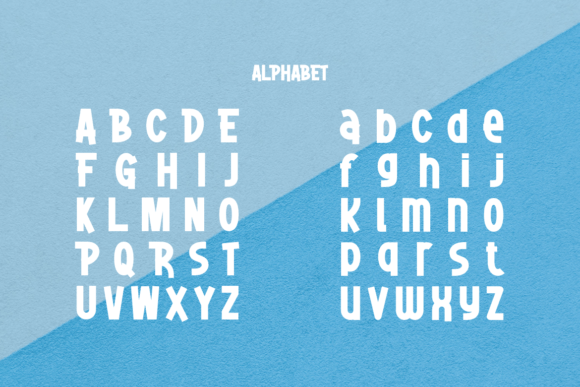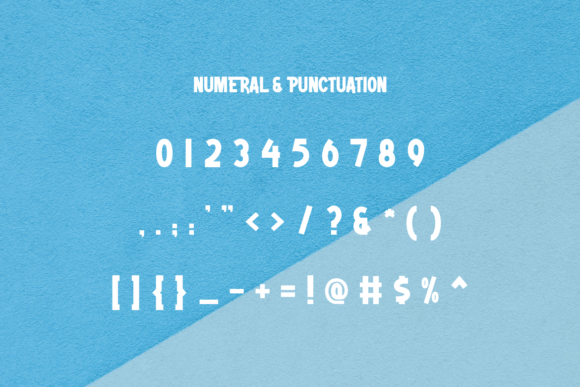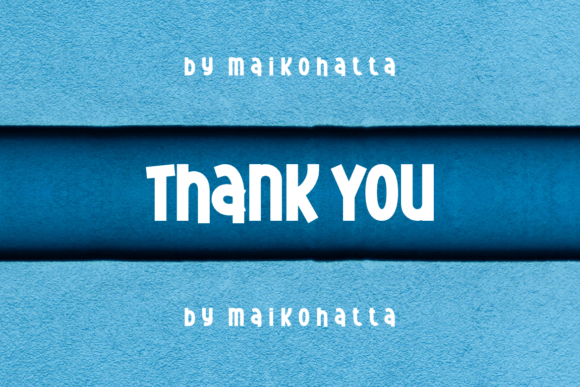
The Perfect Match for Your Next Design Project
Have you ever been in a situation where you’re browsing through a font library, scrolling through countless options, and suddenly, you stumble upon that one font that makes your design come alive? That’s exactly what happens when you discover the Bengben Font. This bold and authentic display font is designed to make a statement and leave a lasting impression.
Bengben Font is perfect for any branding project, from logos to t-shirt printing, and even esports designs. Its versatility and unique character make it an ideal choice for designers looking to add a touch of personality to their work. Whether you’re a seasoned pro or just starting out, the Bengben Font is sure to elevate your designs and leave a lasting impact.
Bengben Font Key Features
- Unique Characteristics: Bengben Font features a unique blend of modern and traditional elements, making it a great choice for designers and artists looking for a distinctive font.
Bengben Font Review
Overall, I was quite impressed with the Bengben Font. The designer has done an excellent job in creating a unique and visually appealing typeface. ✨ One of the standout features of Bengben is its high x-height, which makes it perfect for titles and headings. The font also has a nice, rounded feel to it, which gives it a friendly and approachable look.
Another great aspect of Bengben is its versatility. It works well in both digital and print applications, and its range of weights and styles makes it easy to use in a variety of contexts. ✨ I particularly like the fact that the font includes a range of international characters, which makes it a great choice for multilingual projects.
- ⚠️ The font could benefit from a more comprehensive character set. While it includes a range of international characters, it’s not a complete Unicode range.
- ⚠️ The font may not be suitable for very small sizes, as it can appear pixelated and rough.
Overall, I think the Bengben Font is a great addition to any designer’s toolkit. While it has some limitations, its unique look and versatility make it a great choice for a wide range of projects. With a bit more development, I think it could be a real standout in the world of typography.
Tips for Getting the Most Out of Bengben Font
Use Bengben font for creative and artistic projects, such as:
- Handwritten-style quotes and phrases
- Infographics and data visualizations
- Custom logos and branding
Experiment with different font sizes, colors, and styles to achieve unique and eye-catching designs.